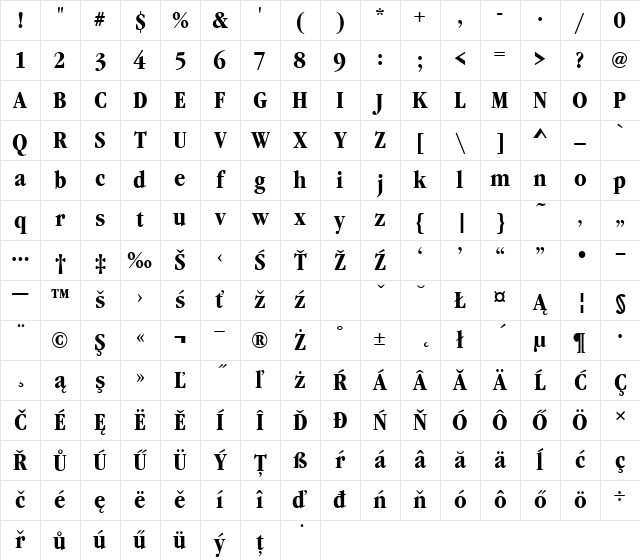
Complete GaramItcTEECon Bold Bold glyph index. Displaying only characters natively supported by GaramItcTEECon Bold Bold font.
GaramItcTEECon Bold is a composed and adaptable typeface that performs quietly and consistently across a wide range of design contexts. Its bold stroke weight gives it real presence on the page.